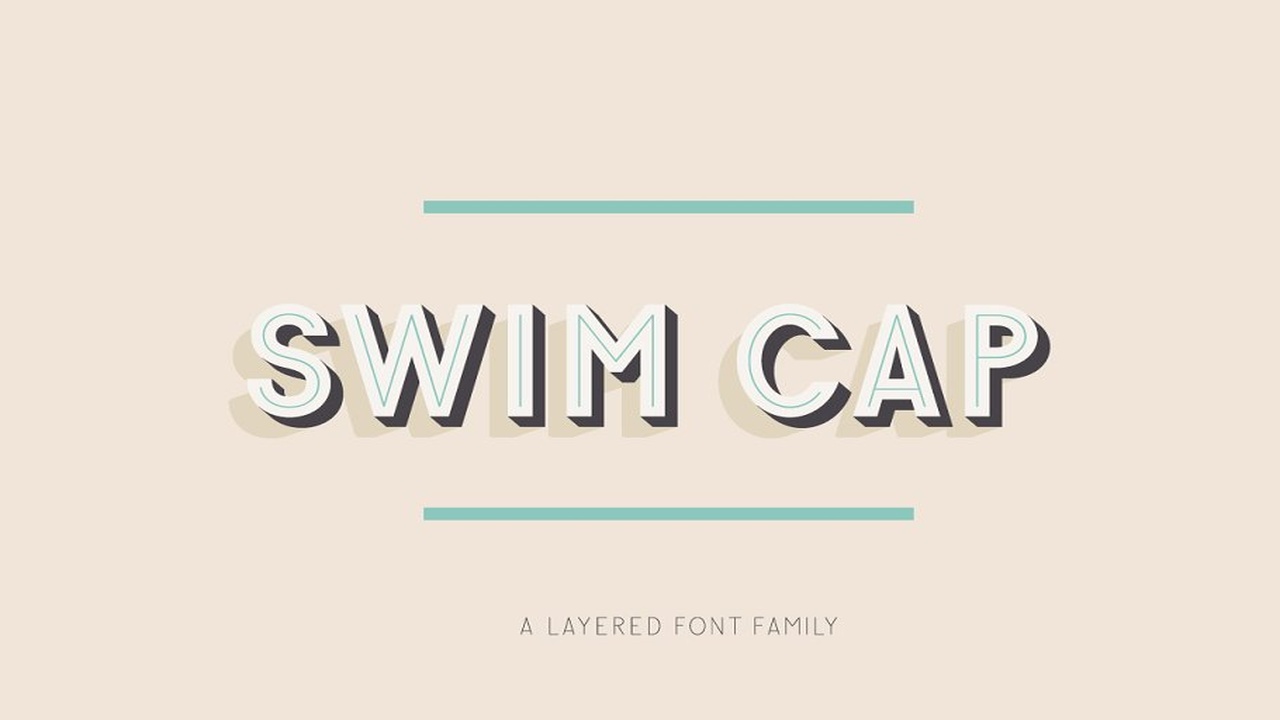
About the Swim Cap Font
Swim Cap is a layered font family inspired by mid-century beach culture, boardwalks, marquee signage, and vintage west coast style, Included is seven layers that can live alone or be stacked to create a variety of display text, The font family contains over 50 characters and includes the following fonts:Swim Cap Base (OTF)Swim Cap Depth (OTF)Swim Cap Dots Large (OTF)Swim Cap Dots Small (OTF)Swim Cap Interior Depth (OTF)Swim Cap Line (OTF)Swim Cap Shadow (OTF)